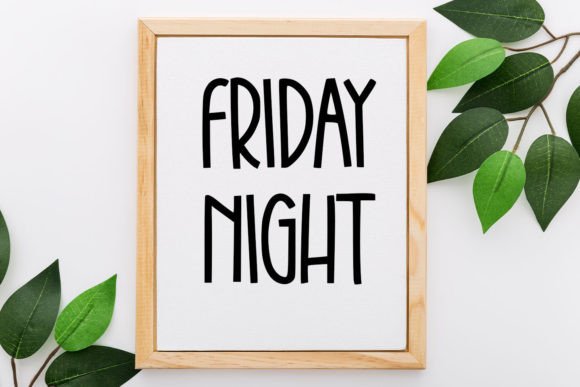
Introduction to June Land Font
Have you ever stared at a blank canvas, feeling the pressure to create something truly special? That’s where the perfect design resource comes in – a font that elevates your project from good to great. For designers, finding the right font can be a game-changer. It’s the difference between a mediocre design and a stunning one that leaves a lasting impression.
Enter the June Land Font, a beautifully simple and stylish font that’s perfect for a wide range of creative projects. With its transparent background and high-quality design, this font is a valuable addition to any designer’s toolkit. Whether you’re working on a quote, branding, packaging, or social media design, the June Land Font is sure to impress. And the best part? It’s available for free download, making it an accessible resource for designers of all levels.
Key Features of June Land Font
- High-quality design resource with a transparent background, ideal for creative projects
- Includes a range of sizes, from 12 to 72 points, allowing for flexibility in design
- Features a unique, modern design that is perfect for adding a touch of elegance to any creative project
- Resolution: 300 DPI, ensuring crisp and clear display on various devices and screens
- Perfect for use in logos, typography, and other design elements where a clean and sophisticated look is desired
Honest Review: June Land Font
I recently had the chance to work with the June Land Font, and I must say it’s a fantastic addition to any designer’s toolkit. As a design resource, it offers a high quality that truly stands out.
The font features a transparent background, making it perfect for creative projects that require a clean and minimalistic look. The free download option is also a huge plus, especially for designers on a budget.
What works well: ✨ The June Land Font has a unique and elegant style that’s perfect for luxury branding, editorial design, and even fashion projects. The font is also highly versatile, making it suitable for a wide range of creative projects.
What could be improved: ⚠️ While the font is high quality, it may not be suitable for projects that require bold or dramatic font styles. Additionally, some users may find the transparent background a bit tricky to work with, especially for beginners.
Overall impression: I’m thoroughly impressed with the June Land Font. Its unique style and high quality make it a great addition to any designer’s toolkit. With a bit of practice, I’m confident that even beginners can master this font and create stunning designs.
- High quality font with a unique and elegant style
- Transparent background perfect for minimalistic designs
- Not suitable for bold or dramatic font styles
- May require practice to master the transparent background
The June Land Font is a high-quality, free download design resource perfect for creative projects. Its transparent background makes it easy to layer and customize in various design applications.
Using June Land Font in Adobe Photoshop/Illustrator
In Adobe Photoshop and Illustrator, you can use the June Land Font by importing it into your project and selecting it from the font menu. This allows for advanced customization and manipulation of the font.
Using June Land Font in PowerPoint/Word
When using the June Land Font in PowerPoint or Word, simply upload the font file and select it from the font library. This will allow you to use the font in your presentations and documents.
Tips for Getting the Most Out of June Land Font
To get the most out of the June Land Font, experiment with different font sizes, colors, and combinations. This will help you create unique and eye-catching designs.
The June Land Font is perfect for creative projects such as blog posts, social media graphics, and presentations. Its high-quality design and transparent background make it easy to use in a variety of applications.
Can I use the June Land Font for web design and digital applications?
Yes, the June Land Font is optimized for web design and digital applications. Its transparent background and high-quality design make it an excellent choice for creating visually appealing digital experiences. However, please ensure that you test the font in different browsers and devices to guarantee optimal performance and compatibility.